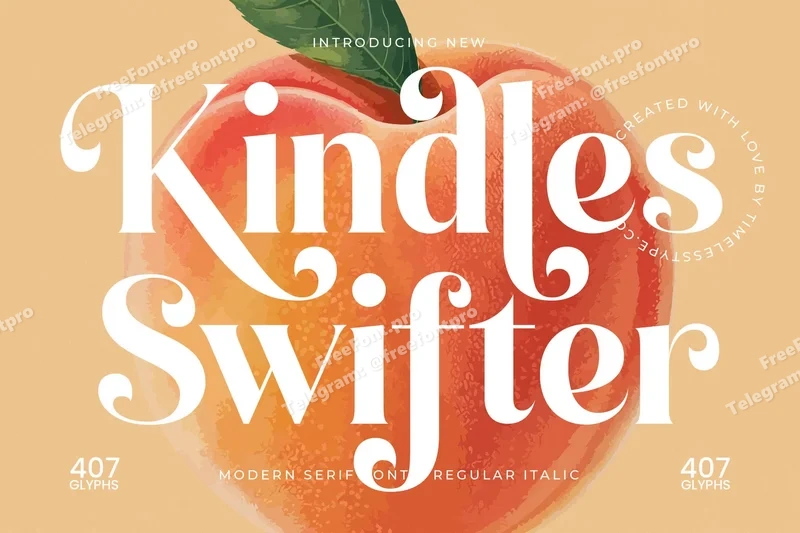
Kindles Swifter – Modern Serif Font
Kindles Swifter is a modern serif font with bold elegance and refined curves, designed to deliver timeless sophistication. Featuring stylish ligatures and versatile alternates, this typeface is ideal for logos, posters, invitations, packaging, branding, and editorial layouts. With its elegant structure and luxurious details, Kindles Swifter is a versatile choice for both digital and print projects, bringing refinement and creativity to every design.